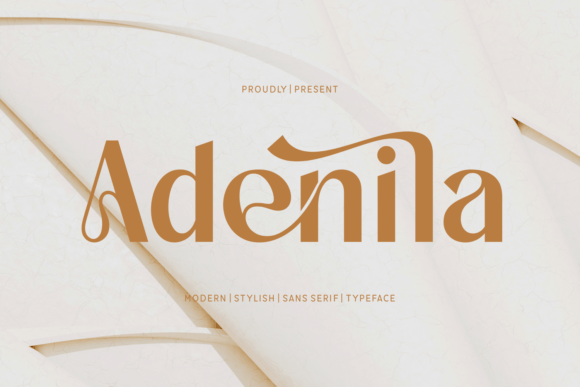
The Designer’s Delight: Unpacking the Elegance of Adenila Font
I’ll never forget the struggle I faced while working on a high-end fashion brand’s logo design project. The client wanted something modern, stylish, and elegant, but I was stuck with a sea of generic sans serif fonts that just didn’t cut it. That’s when I stumbled upon Adenila Font, a game-changing typeface that instantly elevated my design game. In this article, I’ll share my experience with Adenila, its unique features, and how to make the most of this stunning font.
First Impressions: What I Love About Adenila
Adenila Font is a masterpiece of modern sans serif design, boasting soft, flowing architectural shapes that exude elegance and sophistication. Here are the aspects that I absolutely love:
- ✨ Unique and fluid ligatures and swashes that add a touch of luxury to any design
- ✅ Clean and minimalist aesthetic, perfect for high-end branding and fashion-forward designs
- ⚡️ Highly versatile, suitable for logos, headings, and even body text
- 🎨 Extensive range of OpenType features, glyphs, and stylistic alternates for endless creative possibilities
The Not-So-Perfect: Small Quirks and Limitations
While Adenila Font is an exceptional typeface, it’s not without its quirks. Here are a few limitations to keep in mind:
- 🤔 Some users might find the font’s elegance and fluidity overwhelming for body text or longer content
- ⚠️ Limited suitability for very small font sizes or low-resolution applications
The Story Behind Adenila: Designer Inspiration
While the actual designer behind Adenila remains a mystery, it’s easy to imagine that the inspiration came from the world of high-end fashion and architecture. The font’s sleek lines, fluid curves, and luxurious feel evoke the likes of renowned designers like Philippe Starck and Zaha Hadid. Whether or not this is the actual story, one thing is certain – Adenila is a masterpiece of modern typography.
| Font Name | Adenila Font |
| What makes Adenila Font unique? | Adenila’s fluid ligatures, swashes, and stylistic alternates set it apart from other sans serif fonts, making it perfect for high-end branding and fashion-forward designs. |
| Can I use Adenila for body text? | While Adenila is suitable for body text, its elegance and fluidity might be overwhelming for longer content. It’s best used for headings, titles, and short paragraphs. |
| Is Adenila suitable for digital applications? | Yes, Adenila is optimized for digital use and can be used on various platforms, including websites, social media, and digital advertising. |